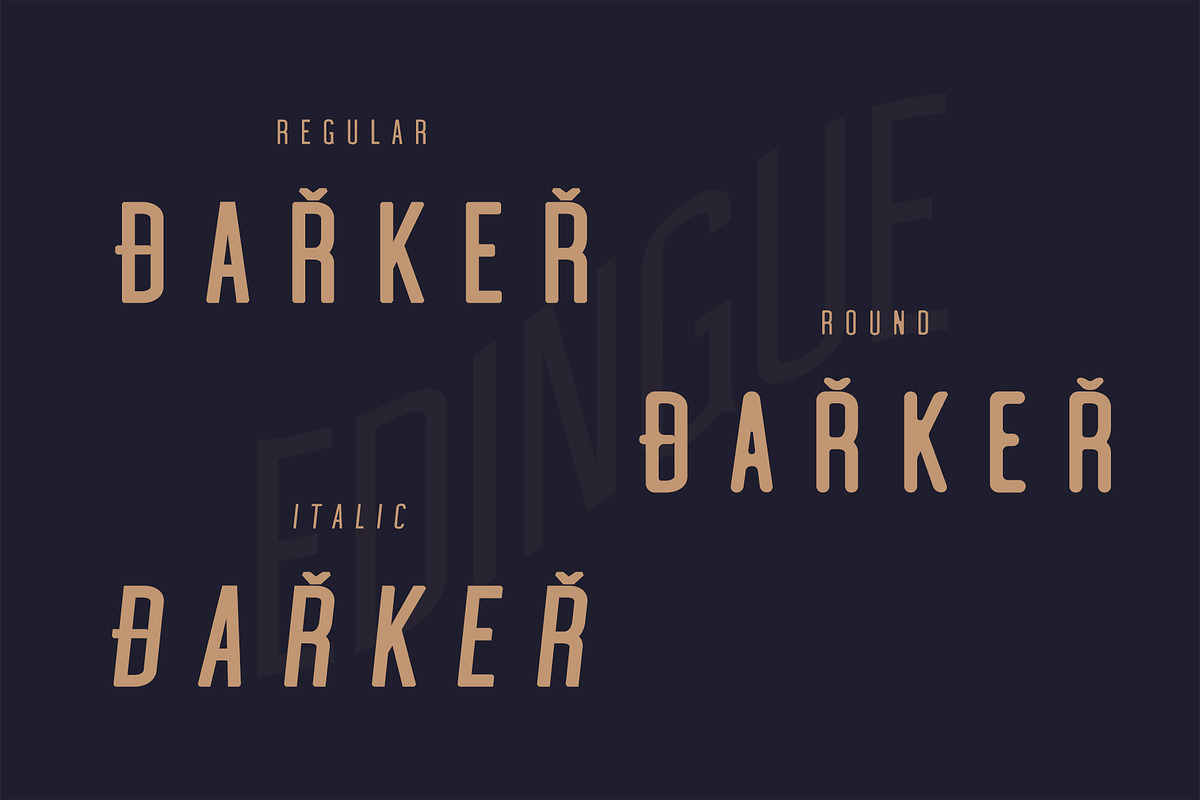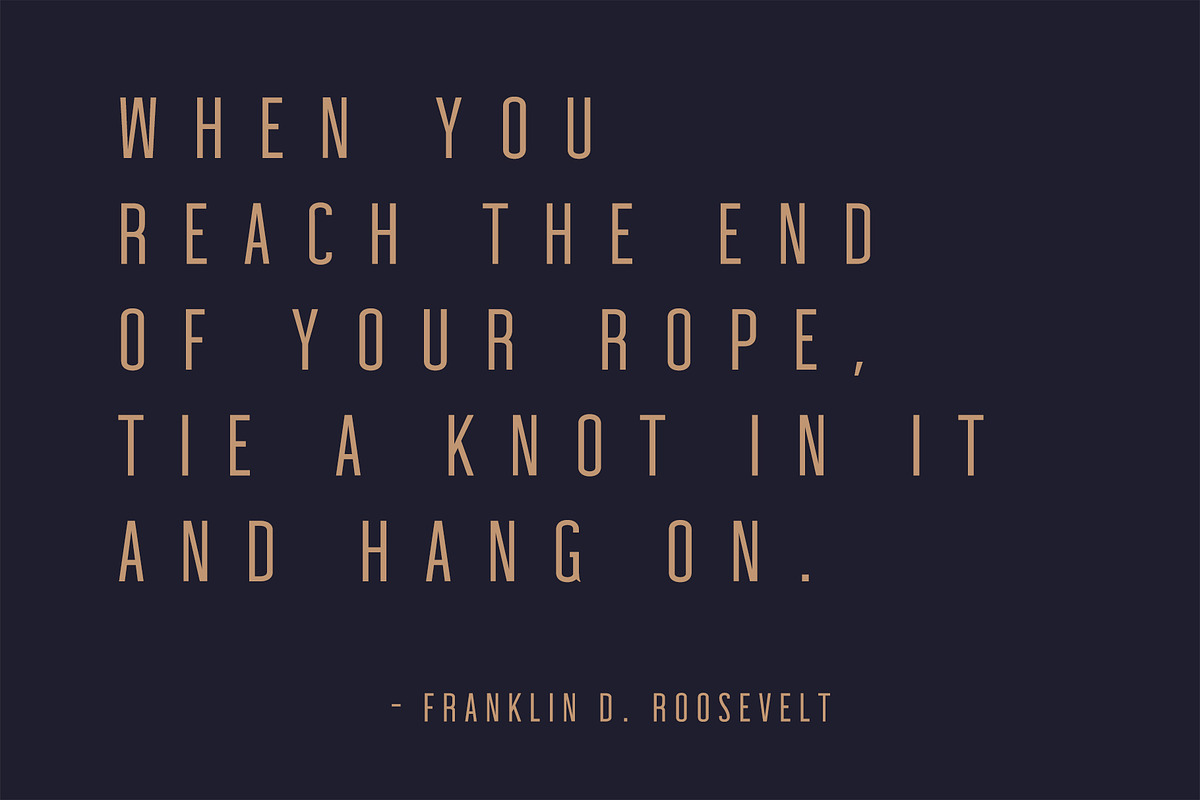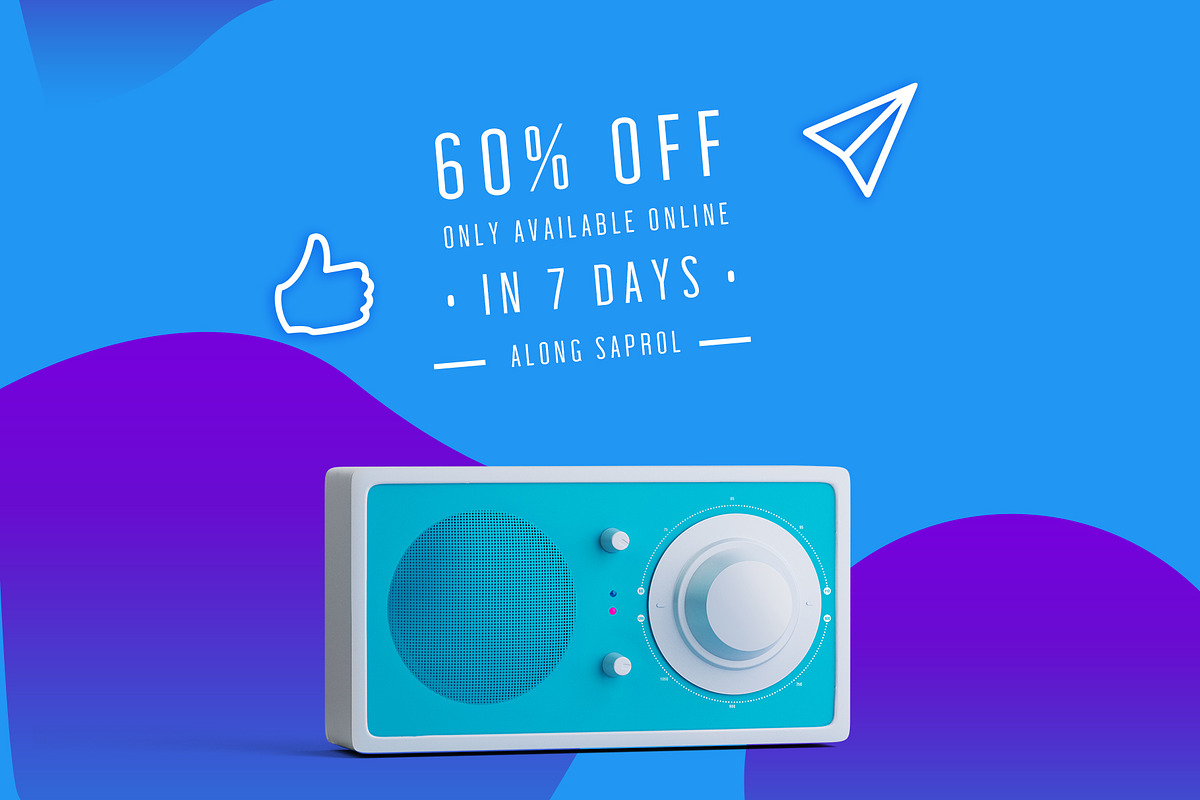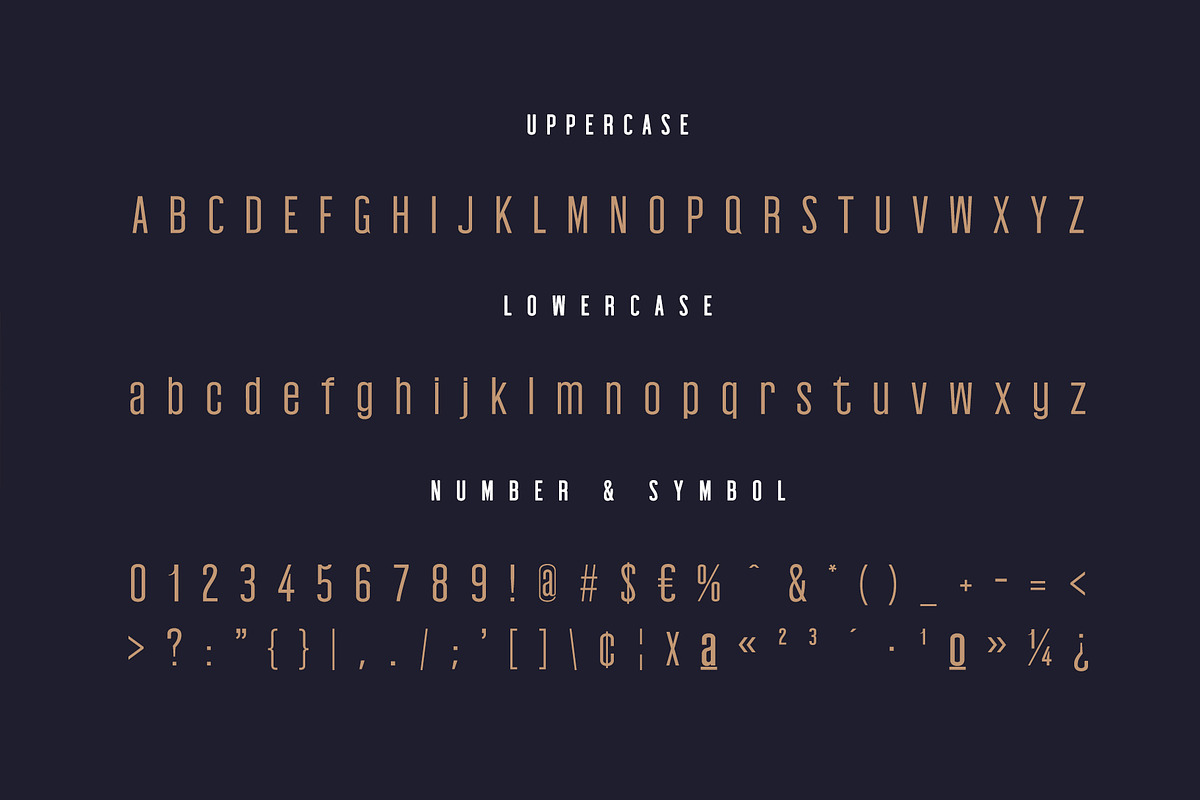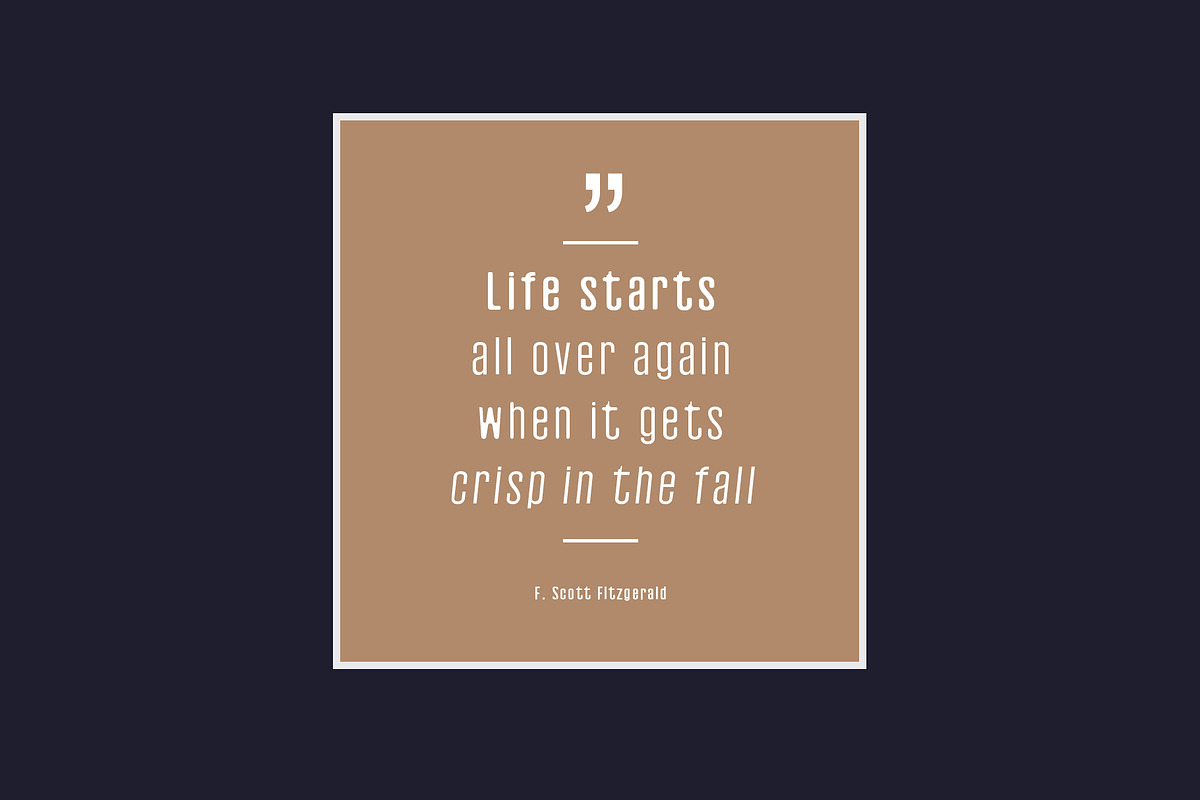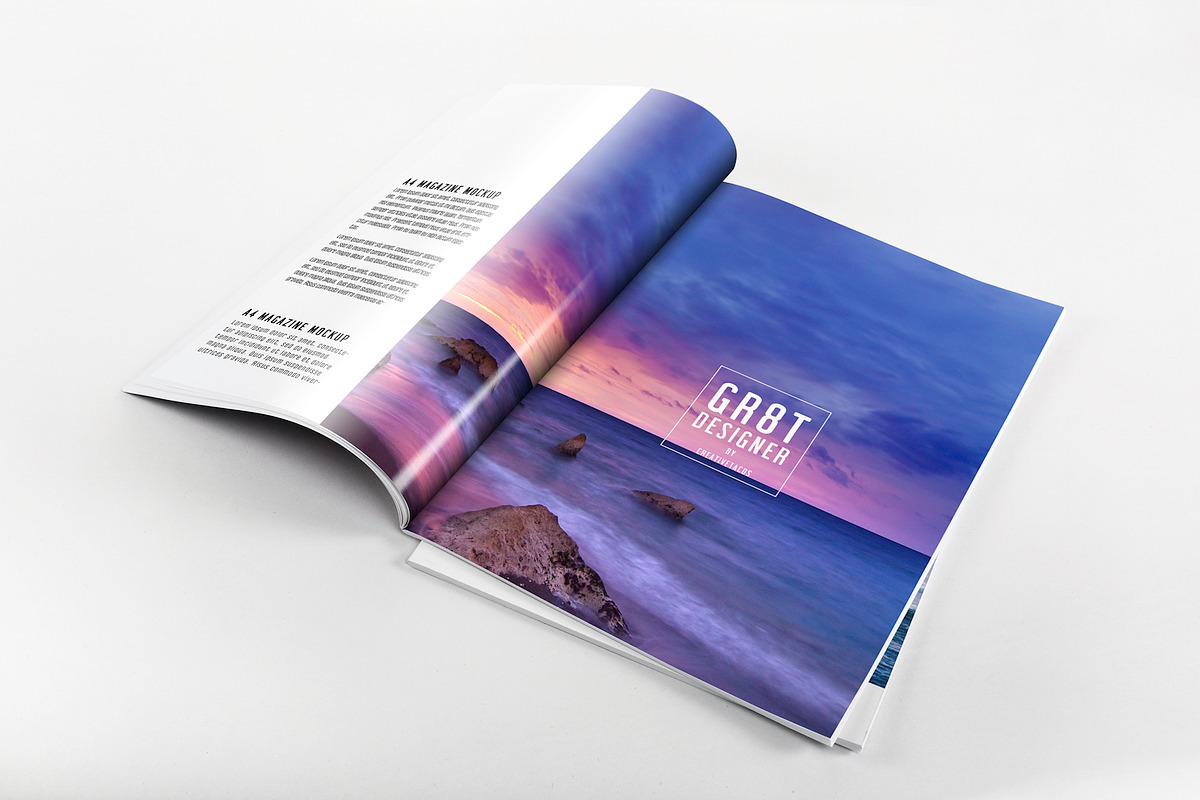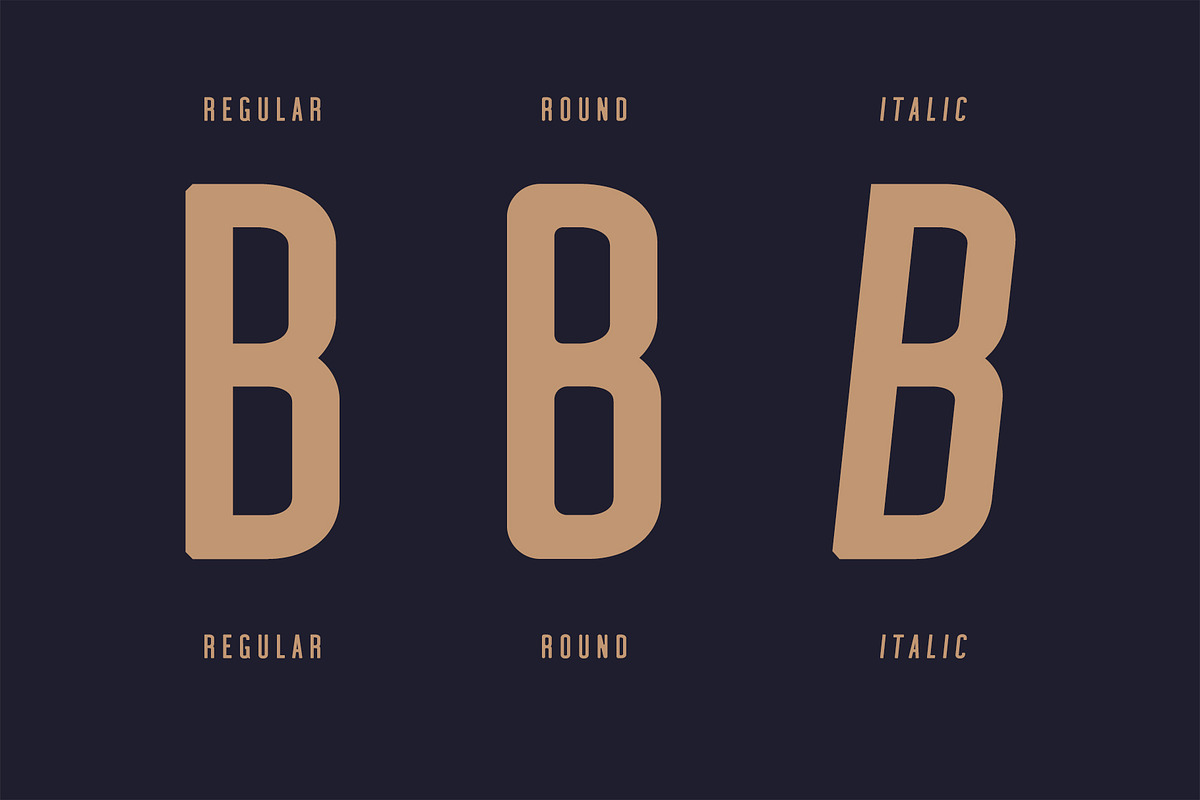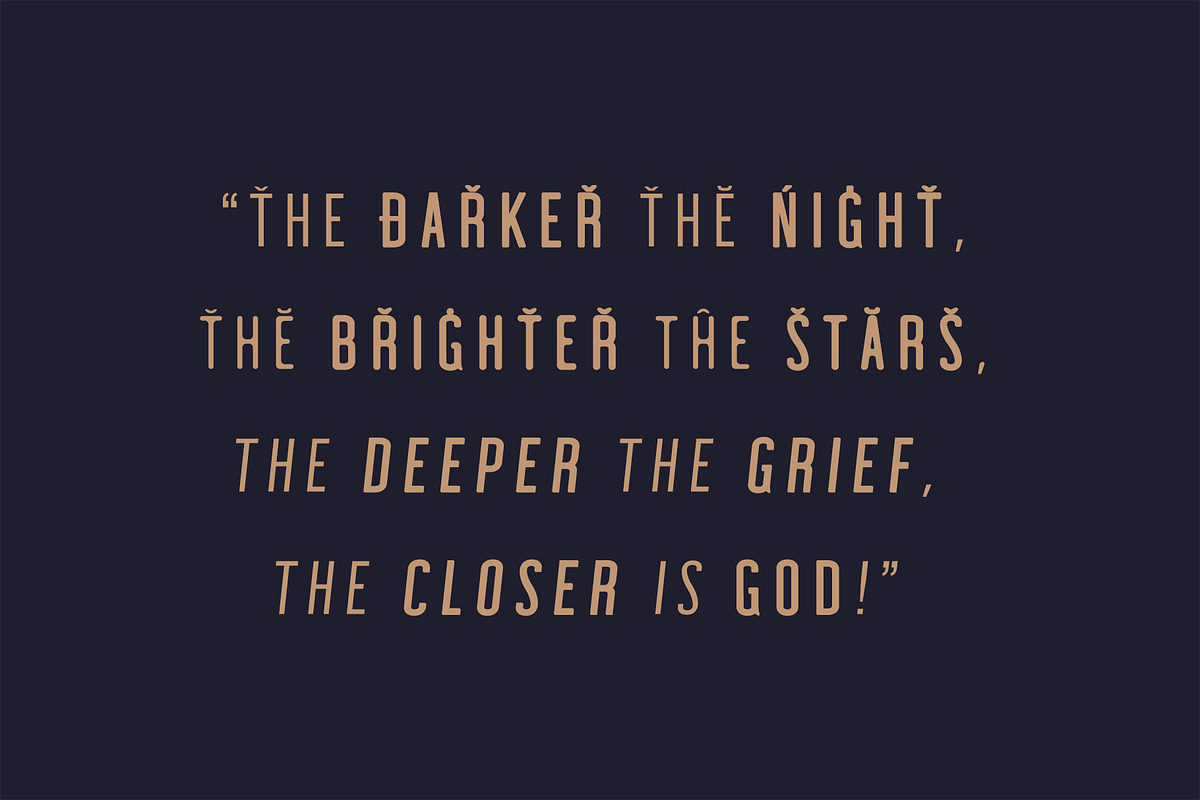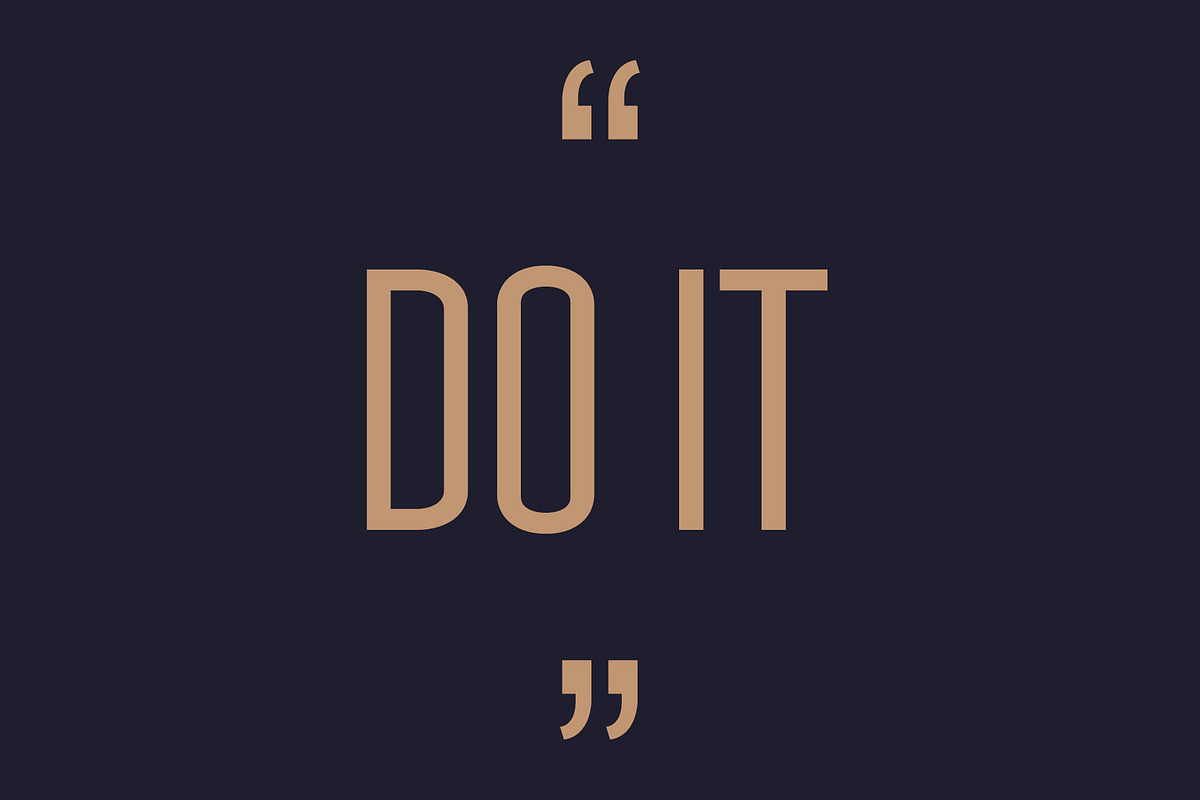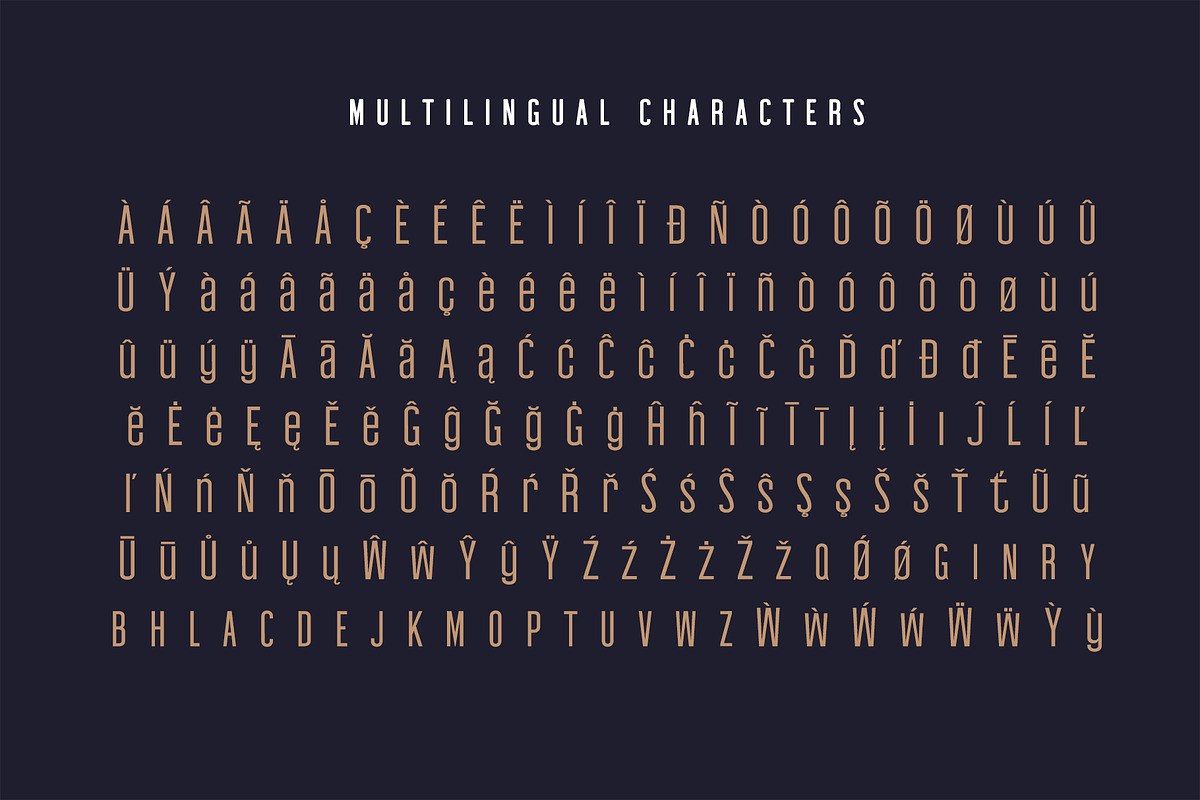
Edingu Sans Serif Font Family
Edingu is a condensed minimal rounded sans serif font. It comes with 3 weights: Regular, Round and Italic versions, which contains complete basic glyph with multilingual support. Edingu will be perfect for logo, packaging, greeting cards, presentations, headlines, lettering, posters, branding, quotes, titles, magazines headings, web layouts, art quote, typography, advertising, invitations, packaging design, books, book title, and nearly any creative design.
- Font Weight: Regular, Round and Italic
Edingu Font Features:
- Uppercase Letters
- Lowercase Letters
- Non English Characters ( Latin Supplement + Latin Extended A)